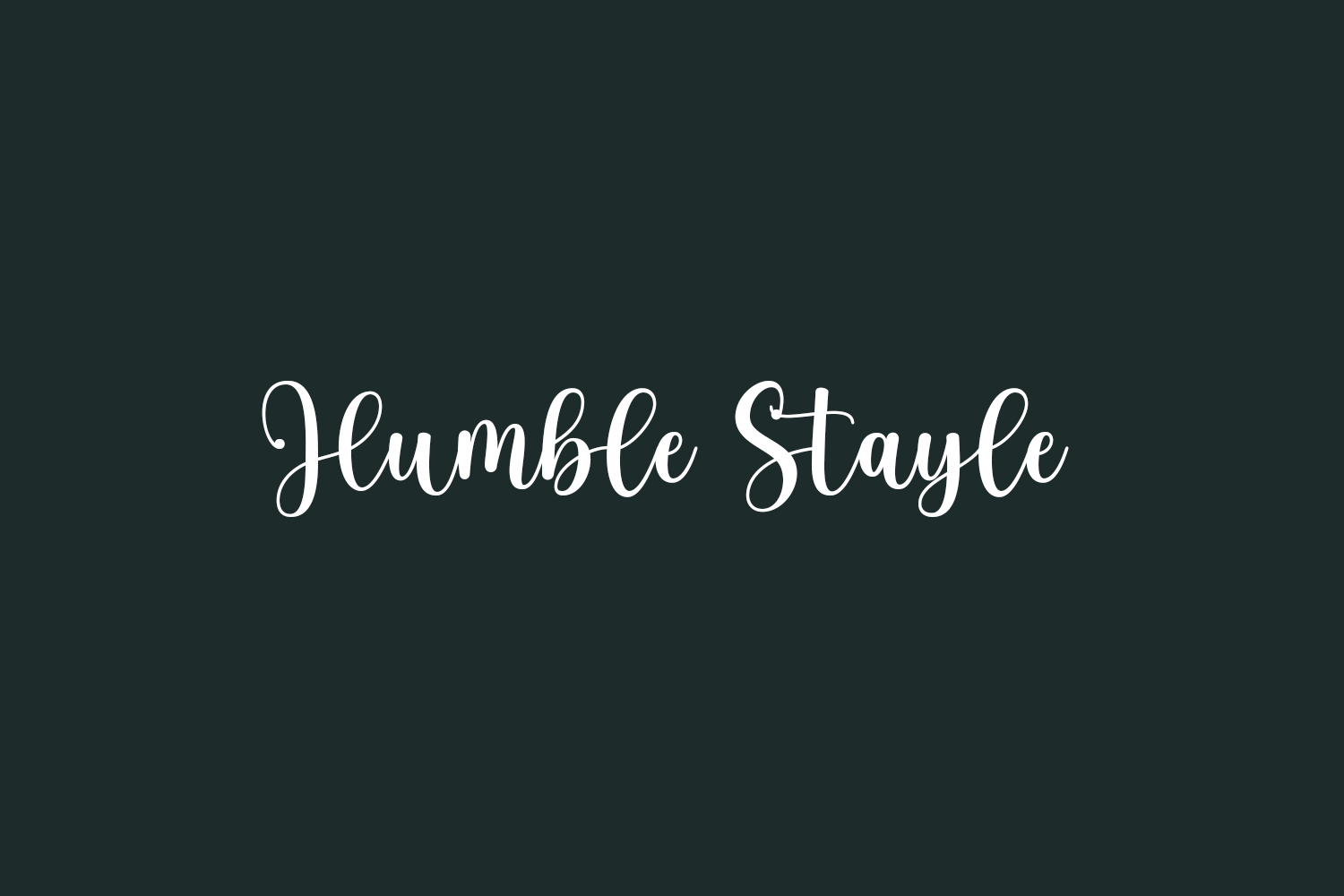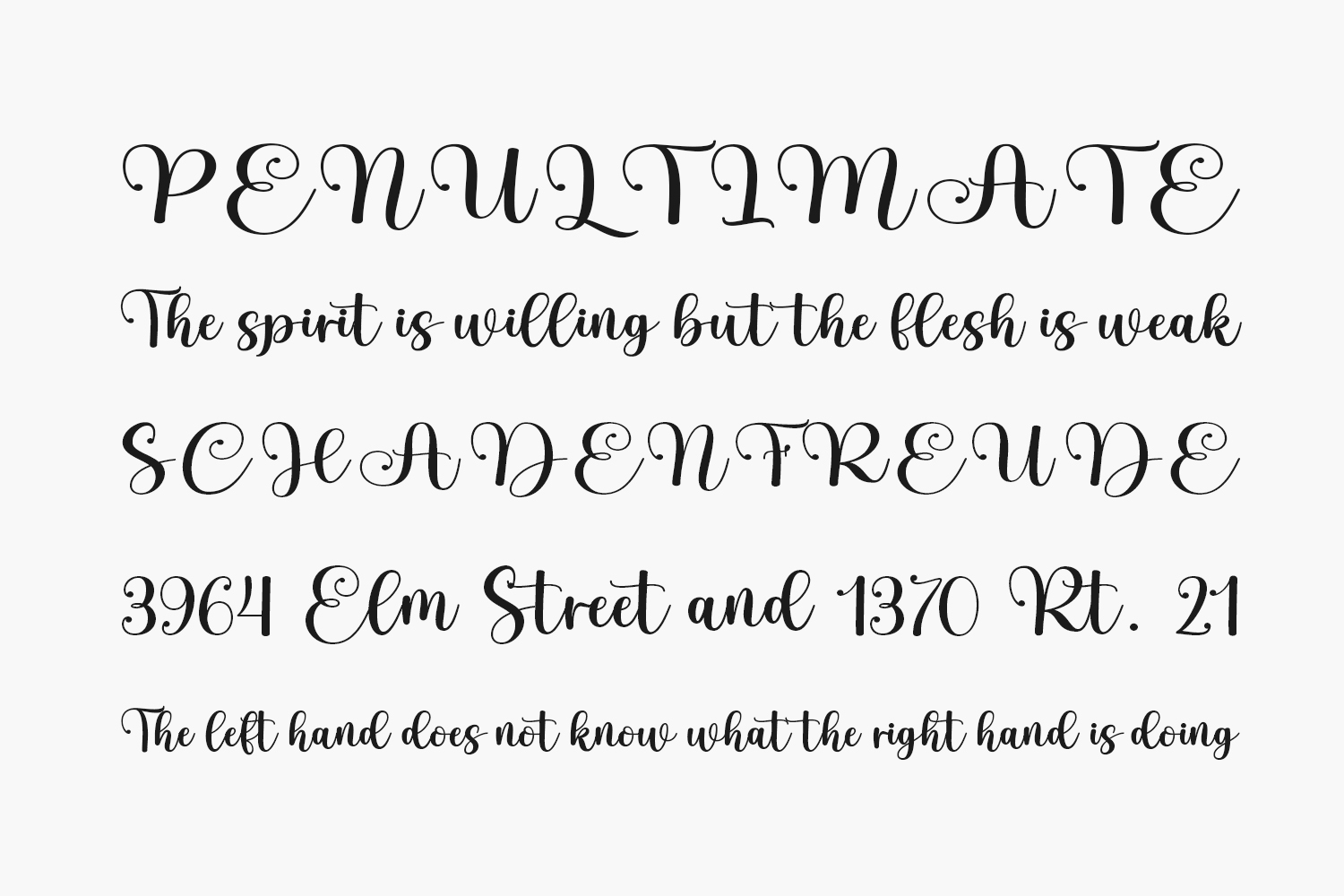
Looking for a dazzling script font that’s both highly detailed and neatly crafted? Look no further than Humble Stayle Free Font! This impressive font is sure to make your designs stand out with its intricate details and stylish script. Whether you’re working on a branding project, logo design, social media post, or any other project that requires a touch of elegance, Humble Stayle is a fantastic choice.